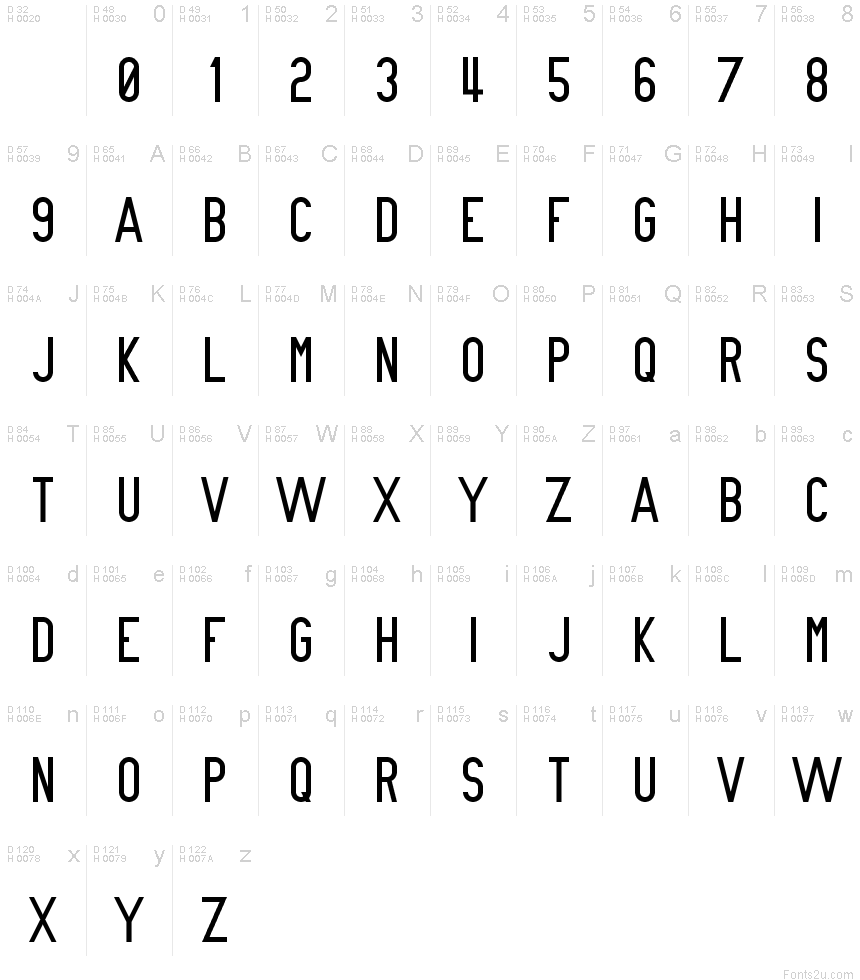
Nue Gothic Regular
Nue Gothic is a tall modern gothic font in the spirit of Alternate Gothic BT2, Oswald, and Bebas. Except that it's not any of those. For the latest update, we've made significant changes to improve the M and W.